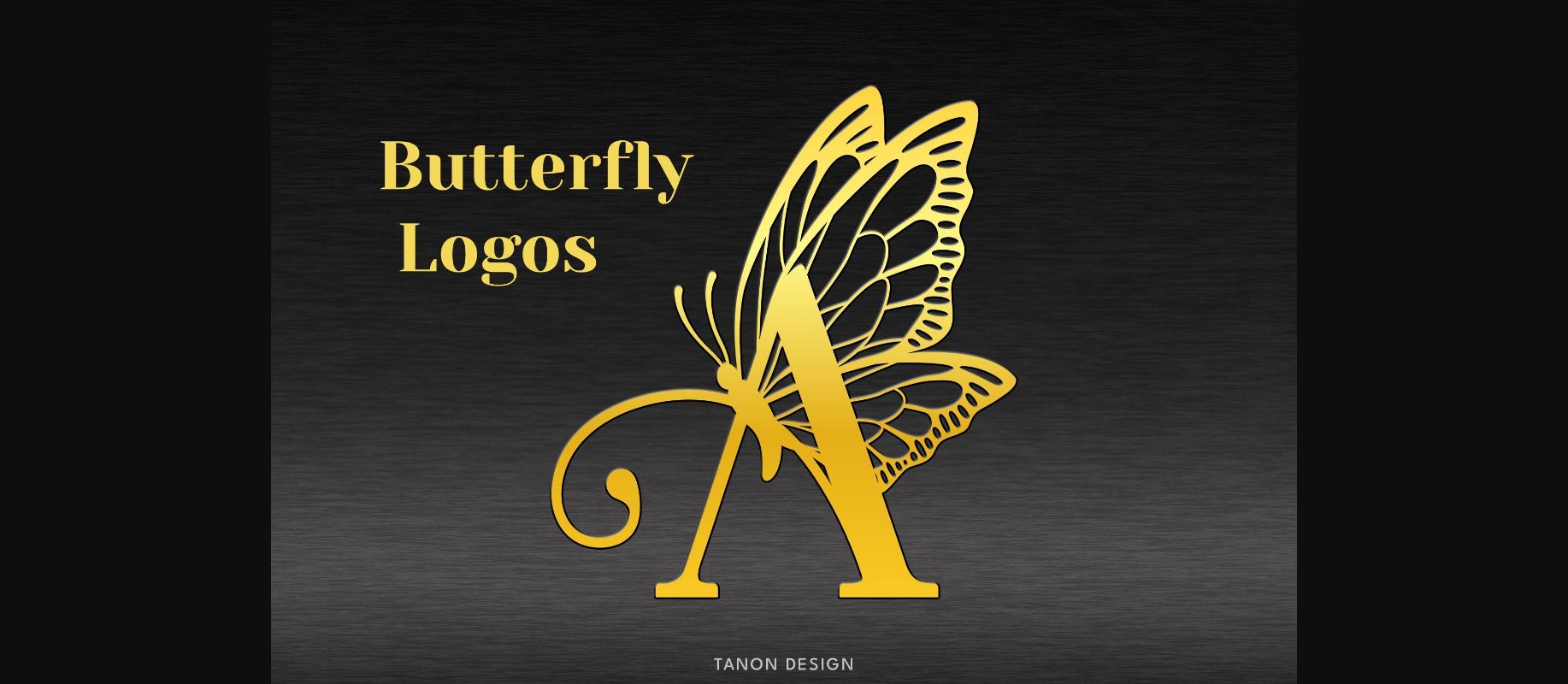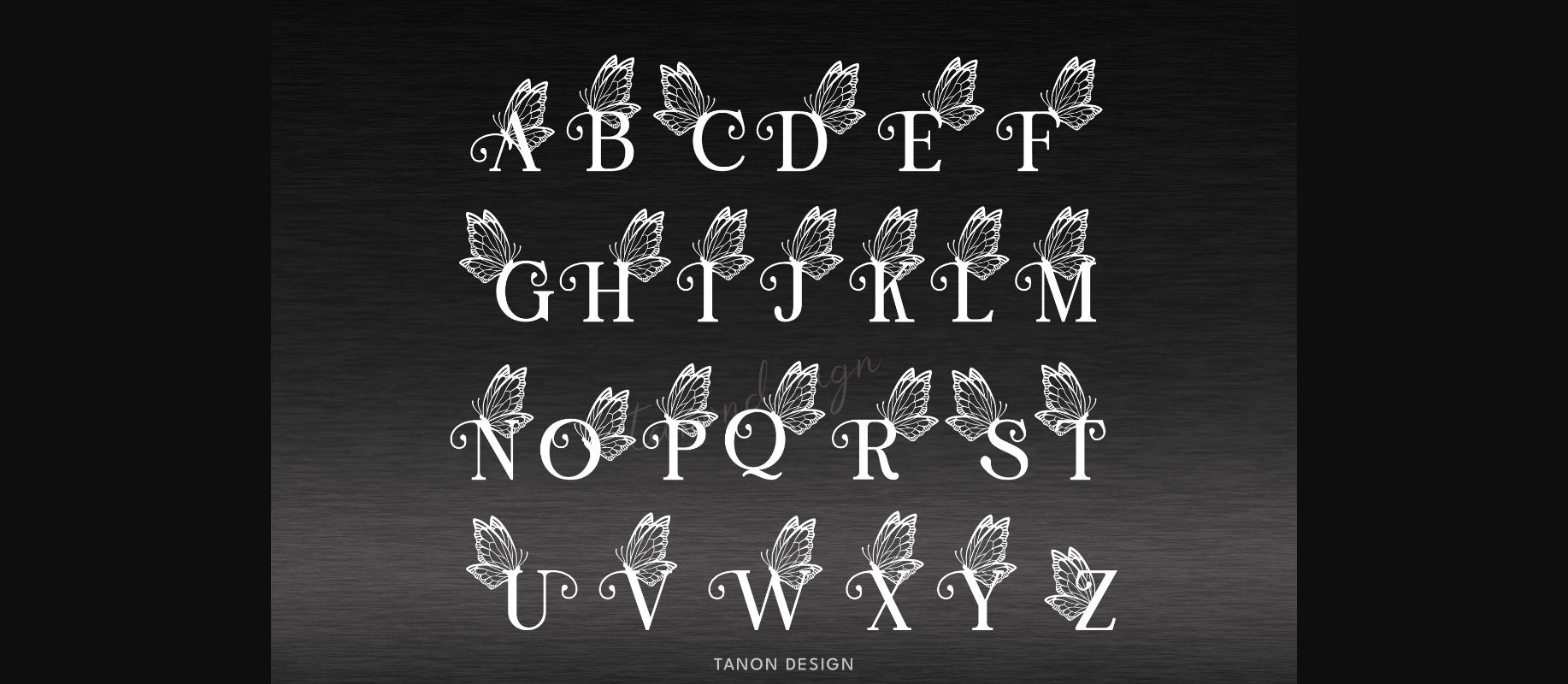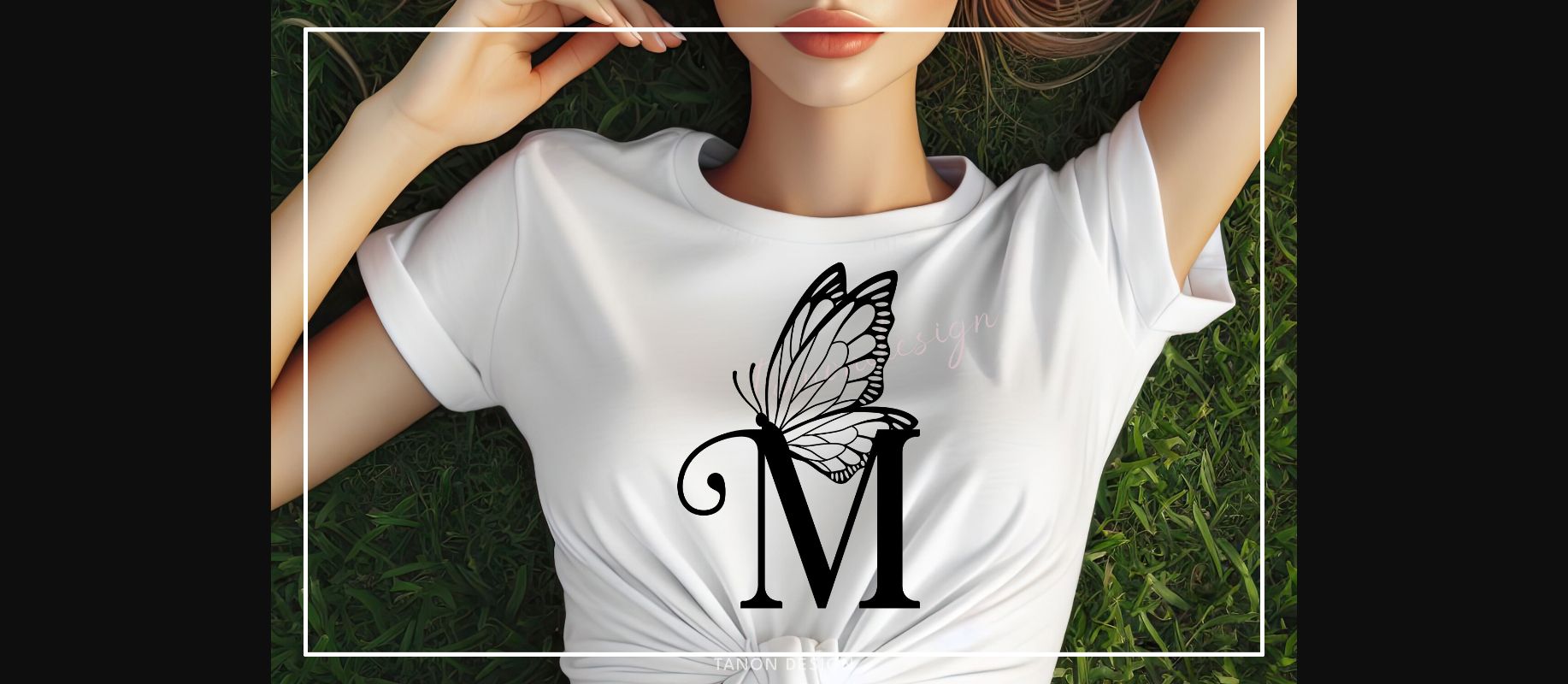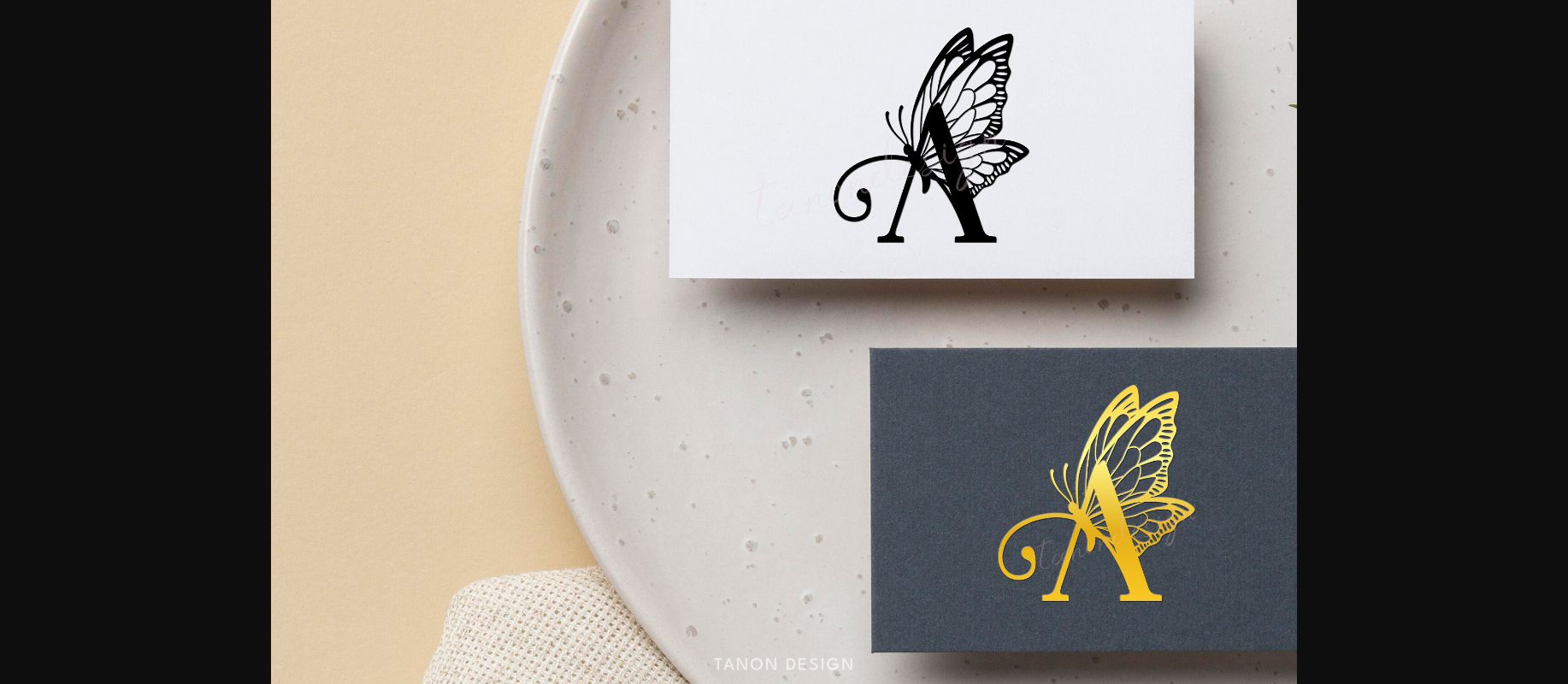
HomeDecorative FontsButterfly Logos Font Decorative Fonts Butterfly Logos Font FacebookTwitterPinterestWhatsApp 1 of 6 ... Butterfly Logos Font Poster 2... Butterfly Logos Font Poster 3... Butterfly Logos Font Poster 4... Butterfly Logos Font Poster 5... Butterfly Logos Font Poster 6... About Butterfly Logos Font Butterfly Logos is a stylish and elegant decorative font. Add it to your monogrammed items and you will love the results! DOWNLOAD NOW People also explored Pridaem Cooper Manhattan Fantastic Giantoli Font Kings Sinquers Font Friendzone Font Trans Atlantic Font Falling Font Sunbury Town Font Morning Lovening Font 188 0 TagsButterfly Logos Font Previous articleSummer Beach FontNext articleFlower Font LEAVE A REPLY Cancel reply Comment: Please enter your comment! Name:* Please enter your name here Email:* You have entered an incorrect email address! Please enter your email address here Website: Save my name, email, and website in this browser for the next time I comment. Personal Use Free Bamboomoe Personal Use Free Read more about this font Knucklehead Personal Use Free Read more about this font Wintersoul Personal Use Free Read more about this font Joystix Monospace Personal Use Free Read more about this font BLOG To increase your work productivity, choose the most readable fonts. In today's fast-paced work environment, where digital communication and information consumption are integral to our daily routines, the choice of fonts can significantly impact... Elegant Wedding Invitation Fonts – Handwritten & Script Fonts Top 7 Google Fonts Alternatives for Faster and Privacy-Friendly Web Design (2025) The 10 Best Handwriting Fonts to Add Personality to Your Designs